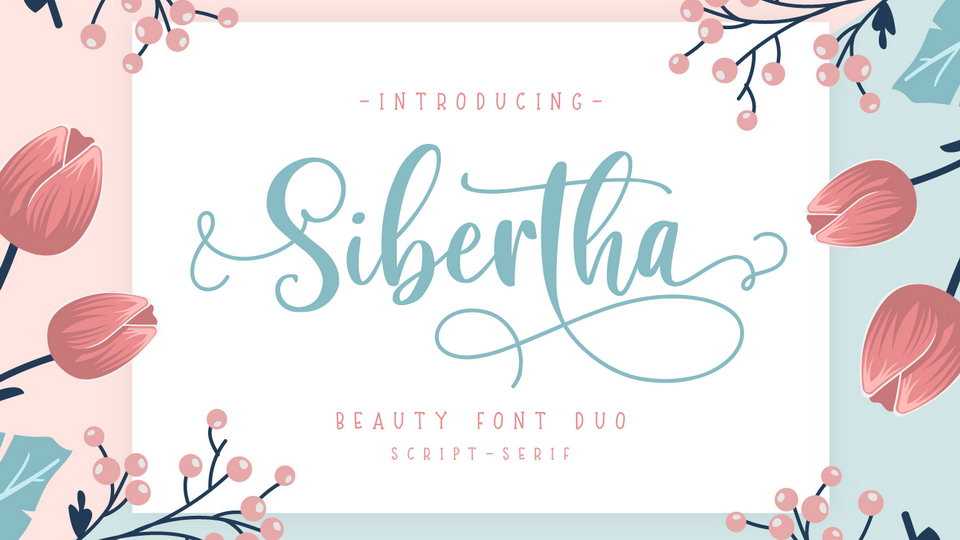
Download Sibertha font, a charming modern calligraphy script with fancy swashes. Sibertha font can be used for branding, photography, invitations, quotes, watermarks, advertisements, and much more!